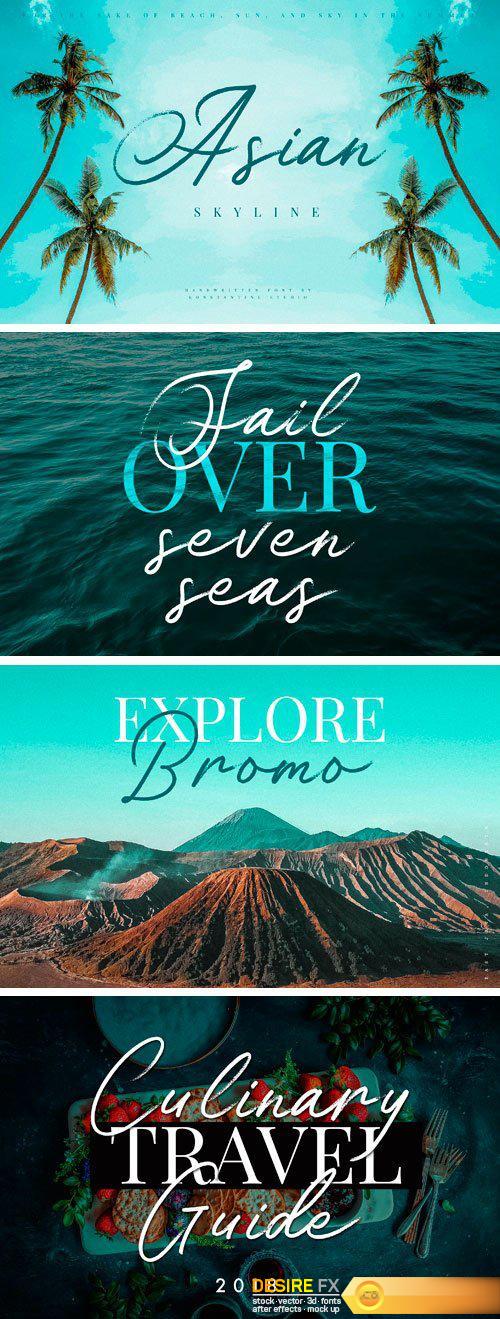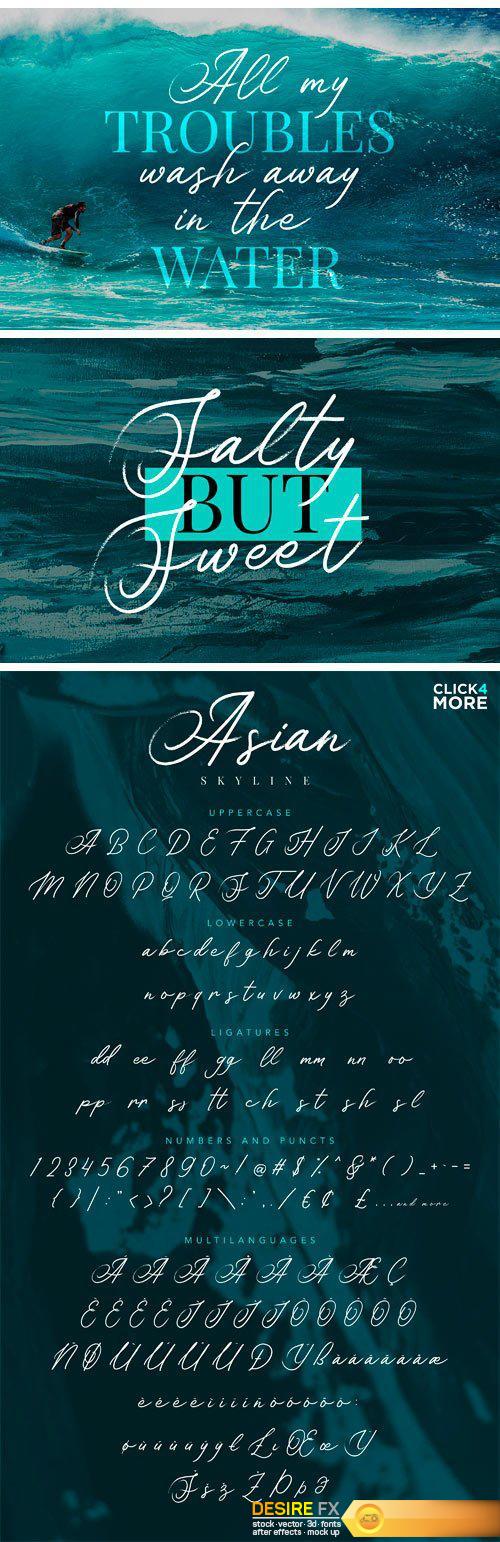
CM – Asian Skyline – Casual Summer Font 2297281
Inspired from the airplane trace line in the bright blue sky, which are something rare nowadays, cause its winter. So why don’t we just make our summer right now? and that’s where Asian Skyline came from. A fast stroke casual brush script font with the fade-out effect in every end of letters, to interpret those airplane trace lines just like what i said above. Perfectly fit for your casual branding stuff, logo, traveling things, holiday promo, summer vibes concept, etc. Lets just have fun like we always did in every summer!